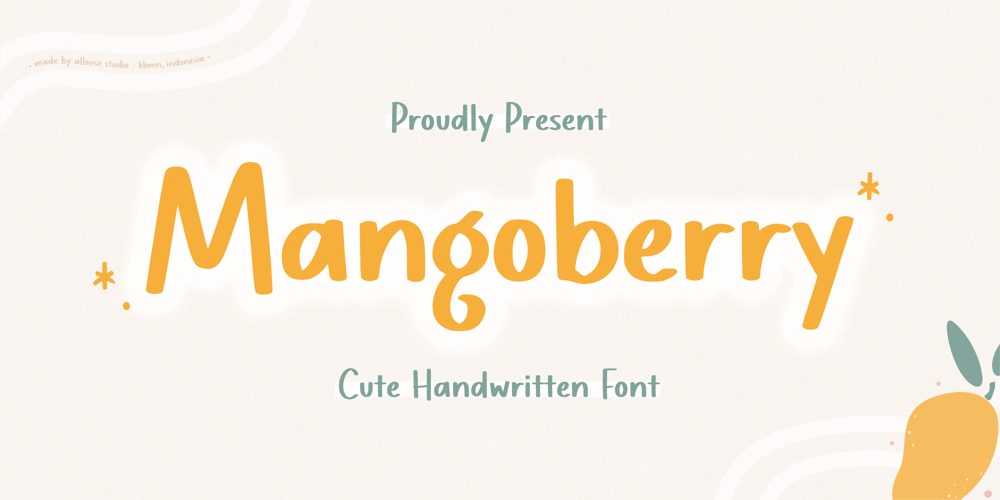
Mangoberry Font Family was designed by Fachrizal Yusuf and published by Allouse Studio. Mangoberry contains 1 styles and family package options. Proudly Presenting, Mangoberry A Cute Handwriten Font.Mangoberry is perfect for any titles, logo, product packaging, branding project, megazine, social media, wedding, or just used to express words above the background.Mangoberry also come with Multi-Lingual Support.Enjoy the font, feel free to comment or feedback, send me PM or email. Thank You!